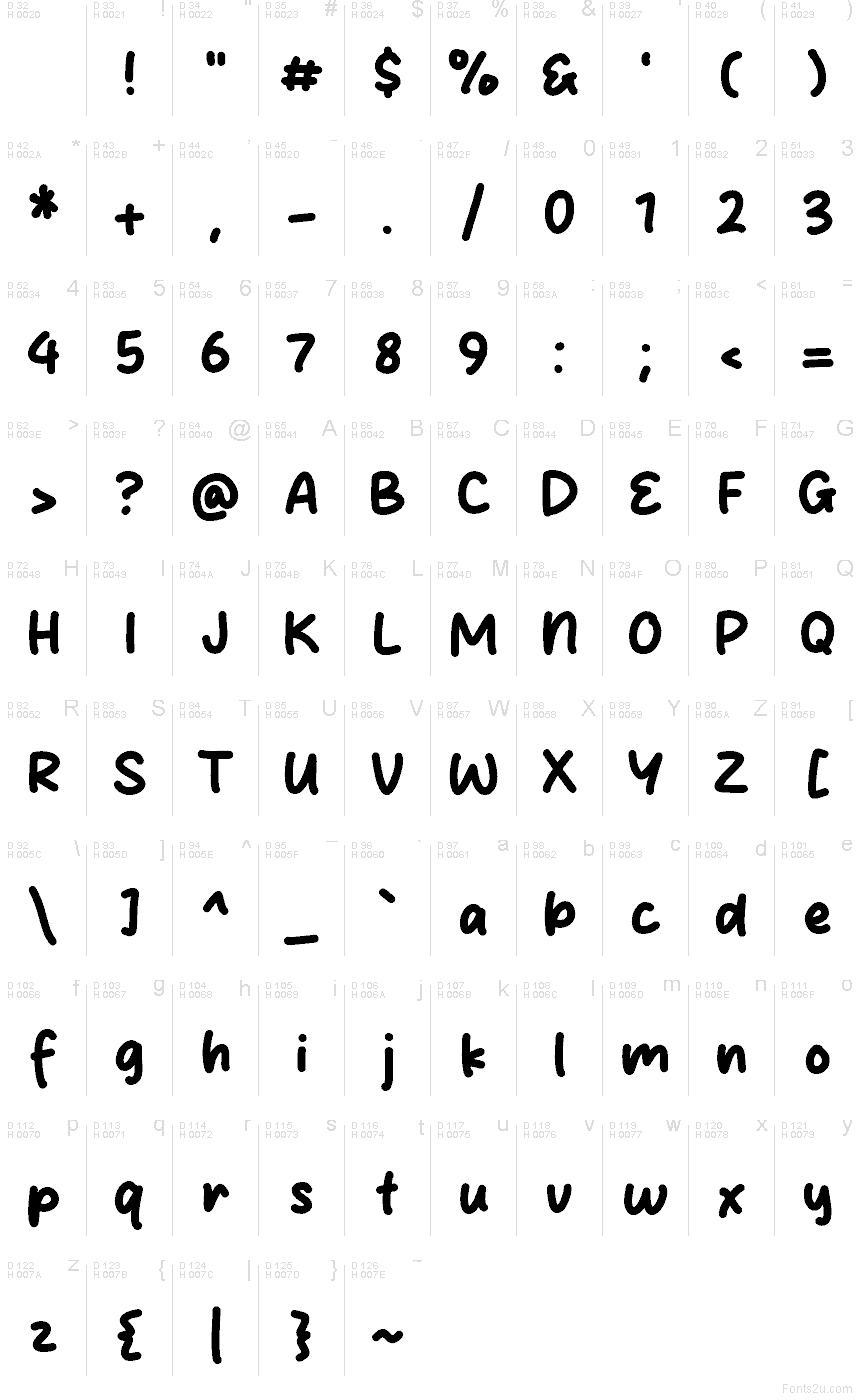
Night Vibes by Origin Type is a free handwritten display font with thick, rounded strokes and an easygoing, uneven silhouette. The letters change width as they move, with soft ends and lively variations in height. Broad forms keep the lettering substantial, yet the open spacing and tilted shapes retain the immediacy of marker-drawn signs.
Casual restaurant branding is its strongest use, especially for menus, packaging, and event posters seeking an informal hand-made voice. On merchandise, the lettering can merge with doodles and upbeat illustrations.